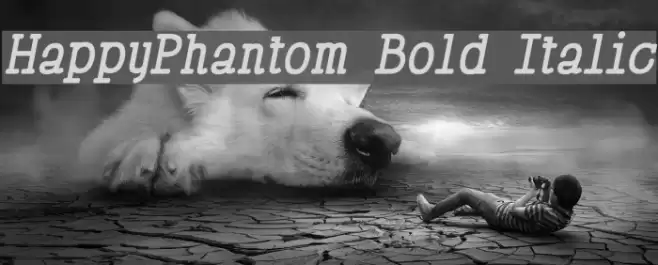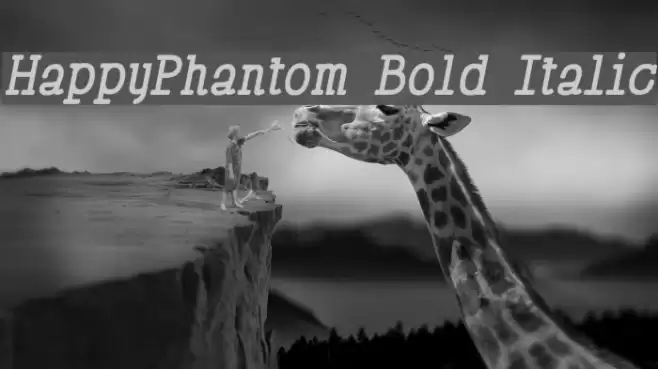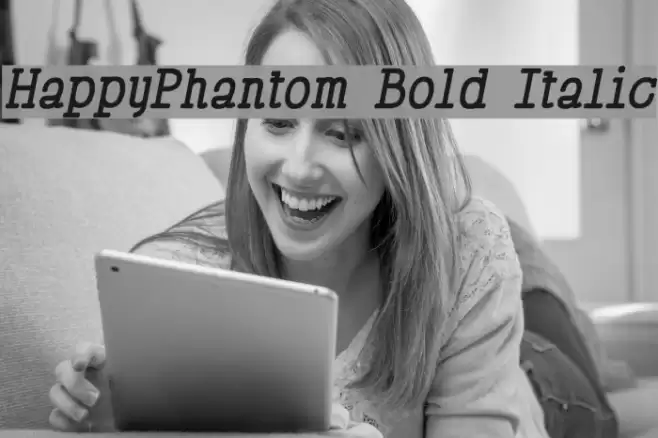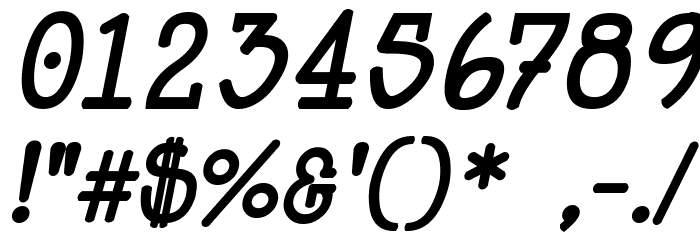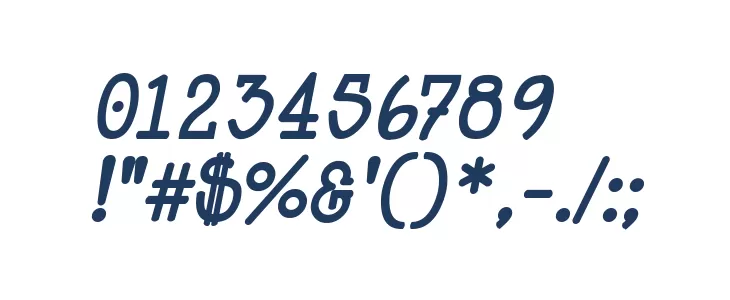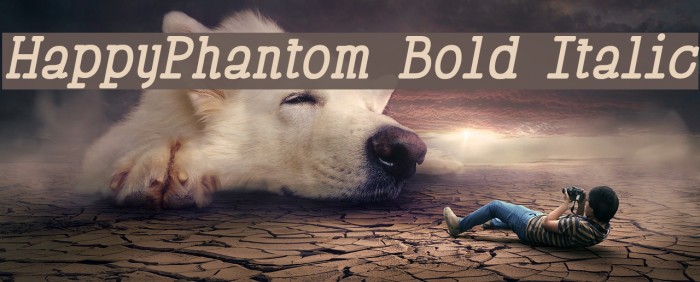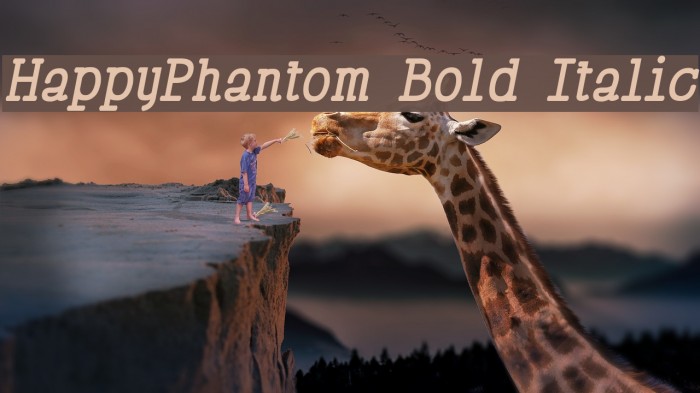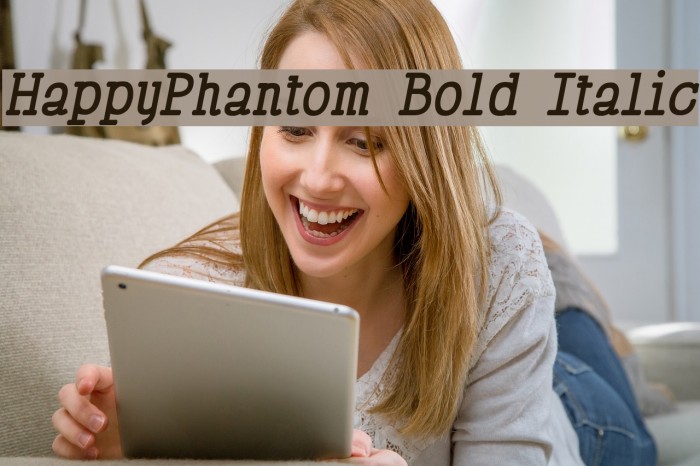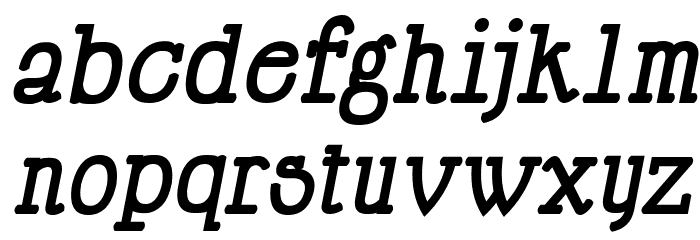
HappyPhantom Bold Italic Font
HappyPhantom Bold Italic Description
This font features a bold and italic style, combining a sense of strength with dynamic movement. The characters are well-defined with a slight slant, giving them an energetic and forward-moving appearance. The strokes are thick and consistent, providing a robust and impactful look. The font maintains a classic serif structure, with small extensions at the ends of the strokes, adding a touch of elegance. The numerals and special characters are designed to match the bold and italicized style, ensuring uniformity across all elements.
A bold and italic serif font with a dynamic and elegant appearance from Uncategorized fonts.
- Proposed Projects: Ideal for branding, headlines, posters, and any project requiring a strong and stylish serif font.
- Overall Style: Classic